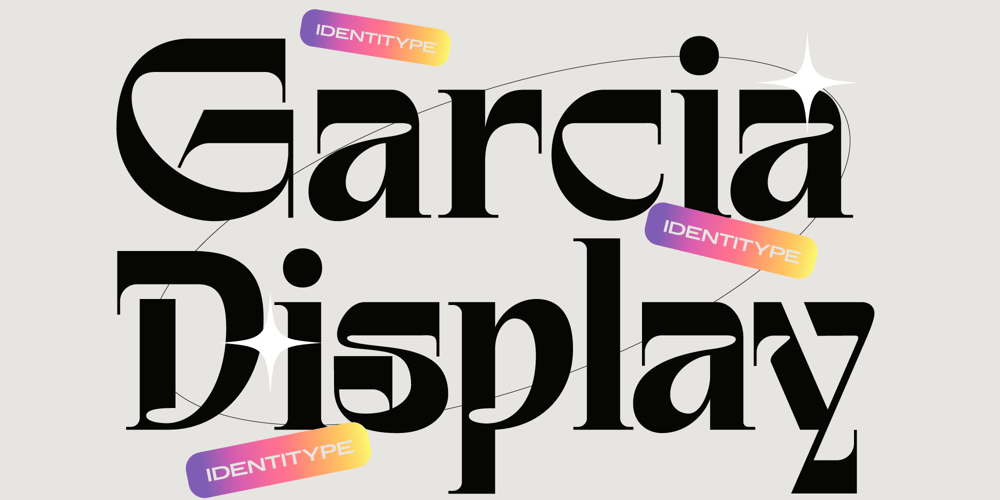
Garcia Font Family was designed by Aulia Rahman, Hendra Maulia and published by Identitype Co. Garcia contains 1 styles and family package options. Garcia is a modern take on a Serif-style typeface. I created a serif style but with added contrast and make a contemporary and memorable font. Sharp points mix with smooth curves creating unique glyphs that are perfect for interesting wordmarks and typographic posters.